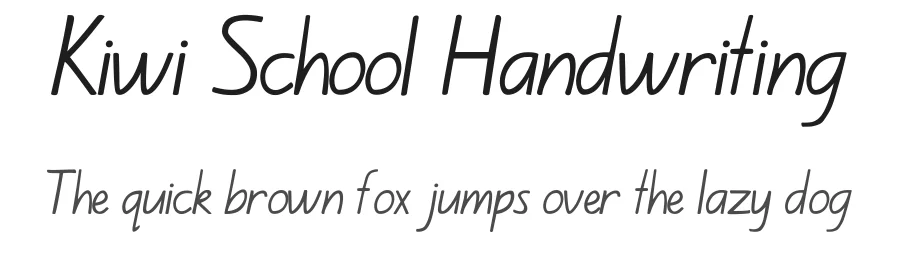
About Kiwi School Handwriting with Guides Font
Based on the style described in the New Zealand Ministry of Education 'Teaching Handwriting' manual, showing basic guides for direction of movement.
- Smoothed all characters
- Some shape adjustments to match 2025 updated MoE manual
- Some movement guides changed to match 2025 updated MoE manual
- macrons for MΔori
- maths operations symbols +-Γ·x
- font height adjustments for consistency
- kerning adjustments
Kiwi School Handwriting with Guides Font